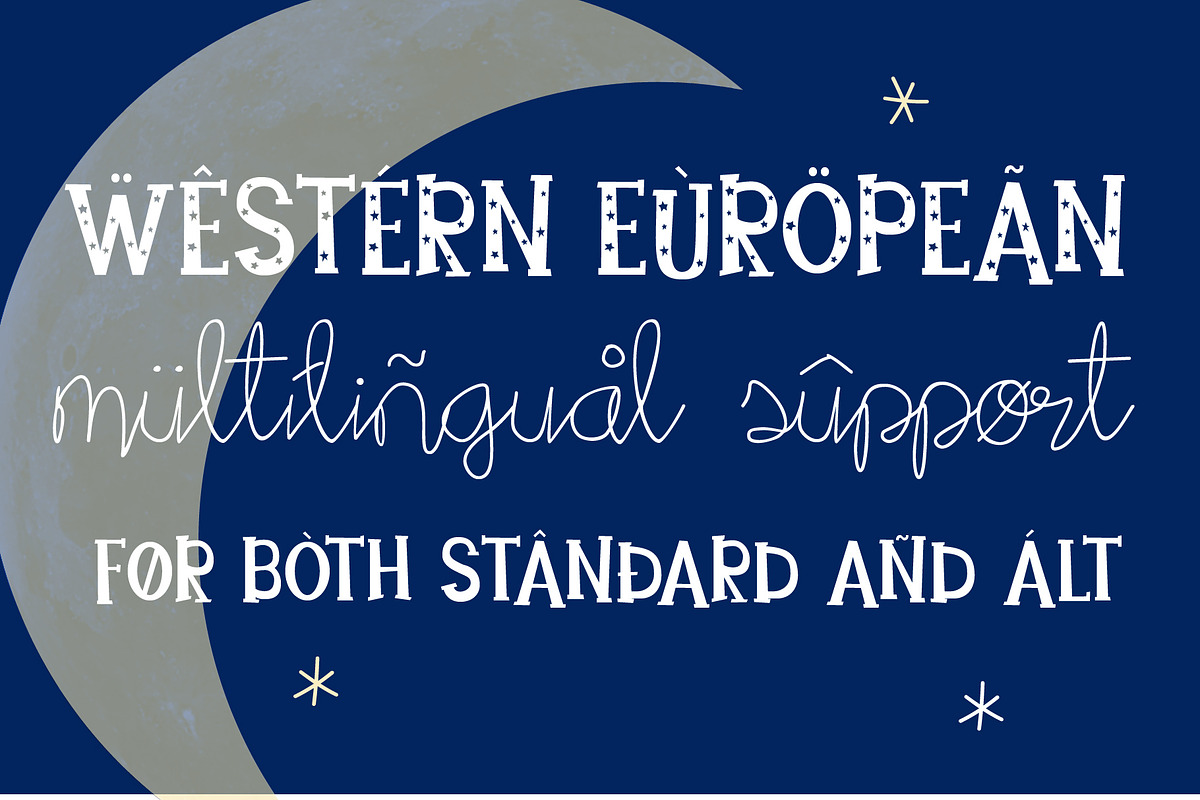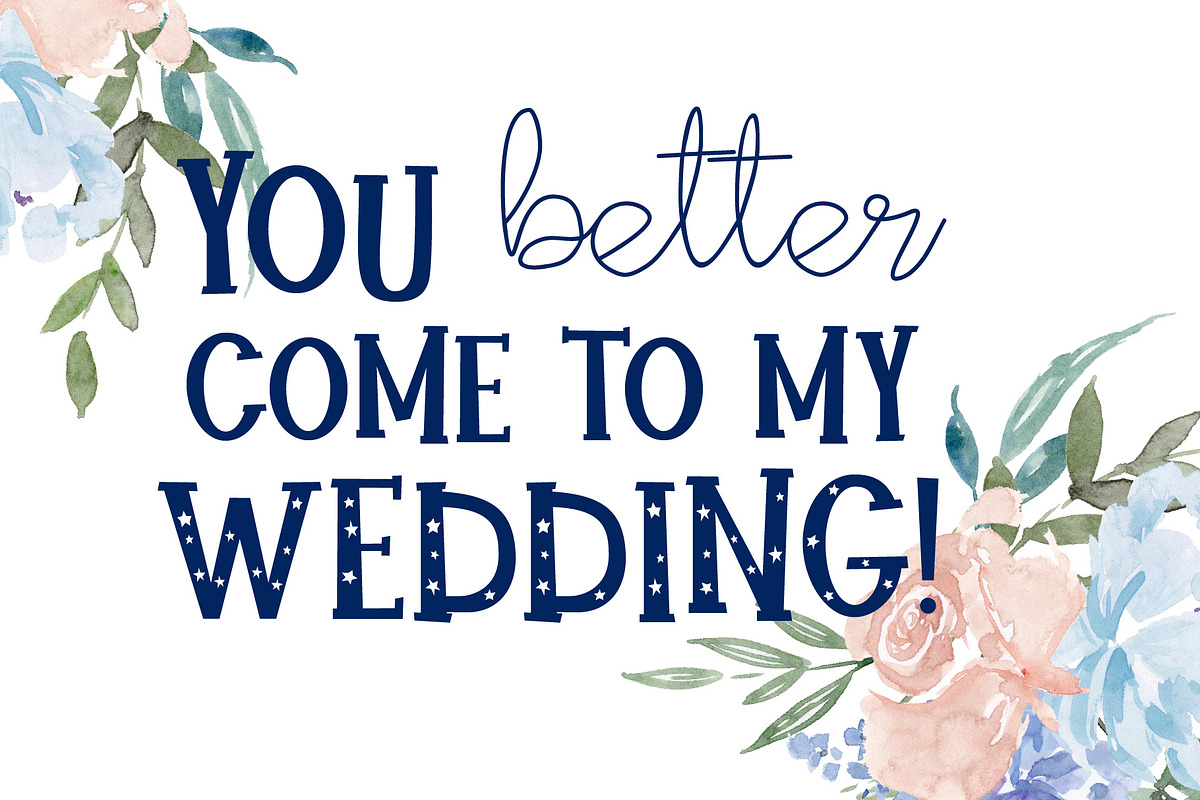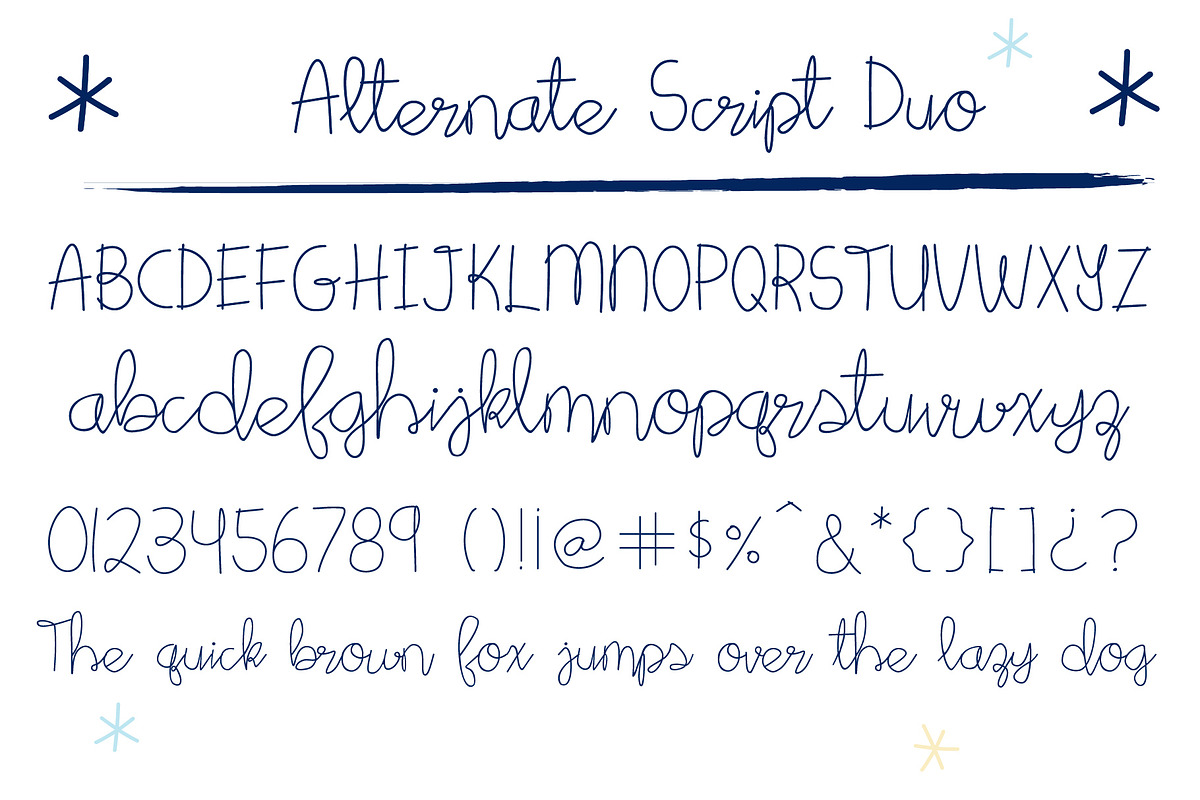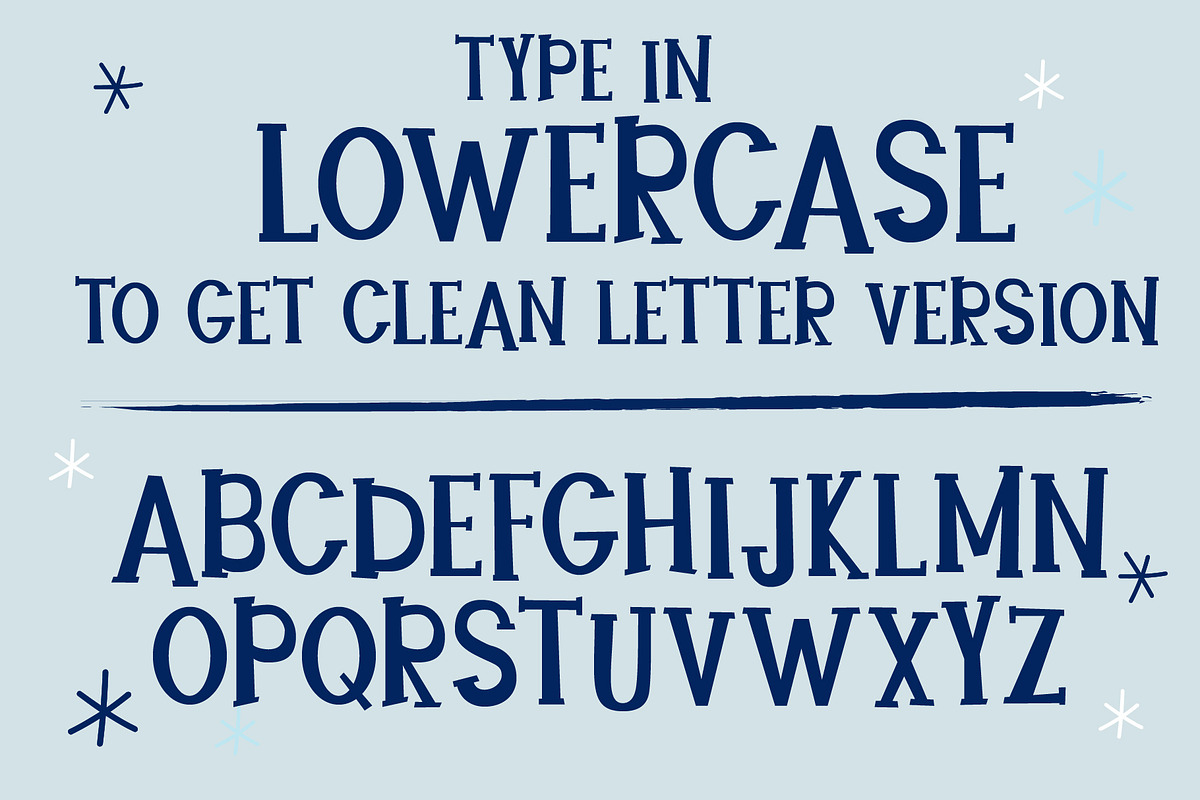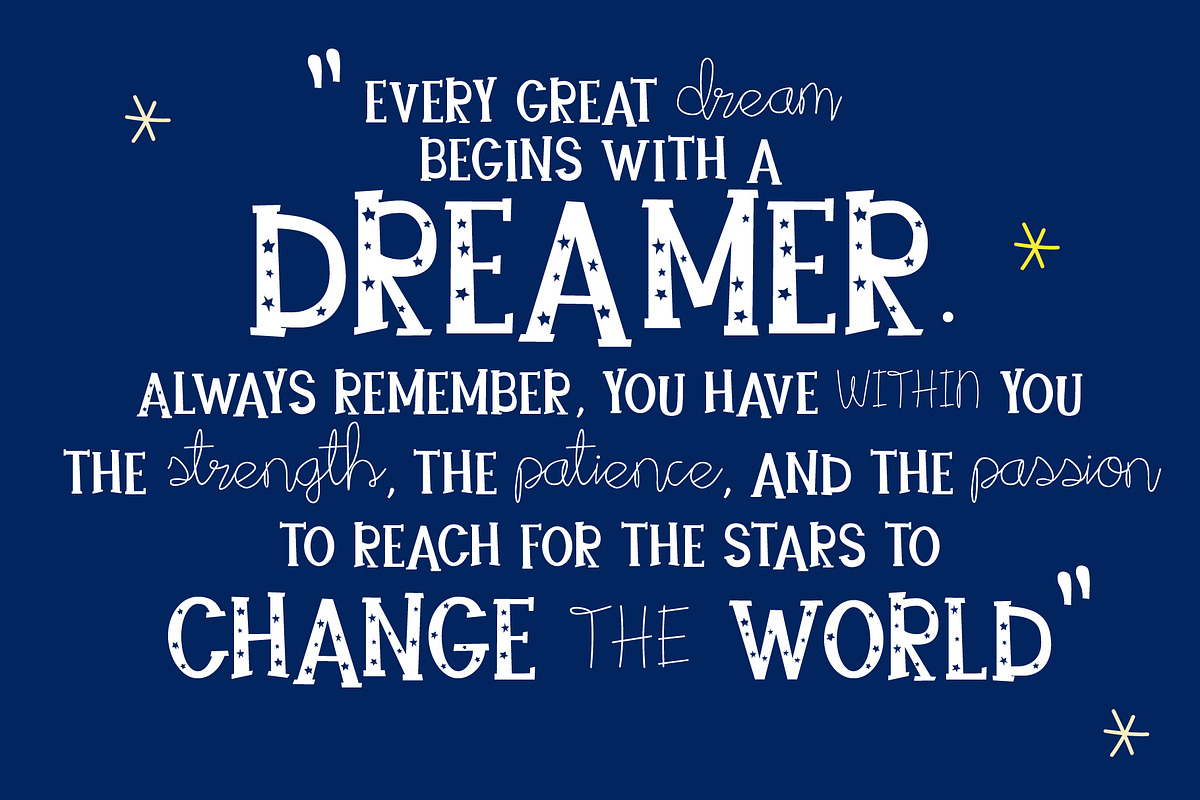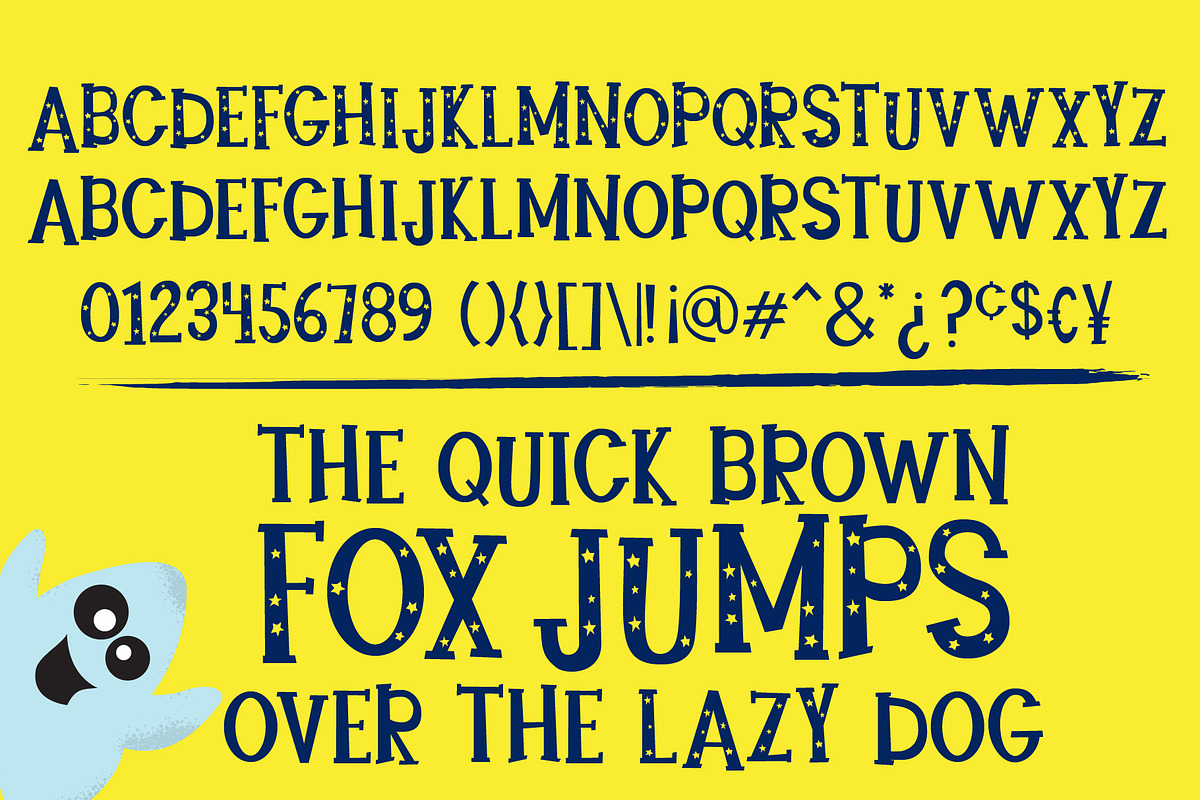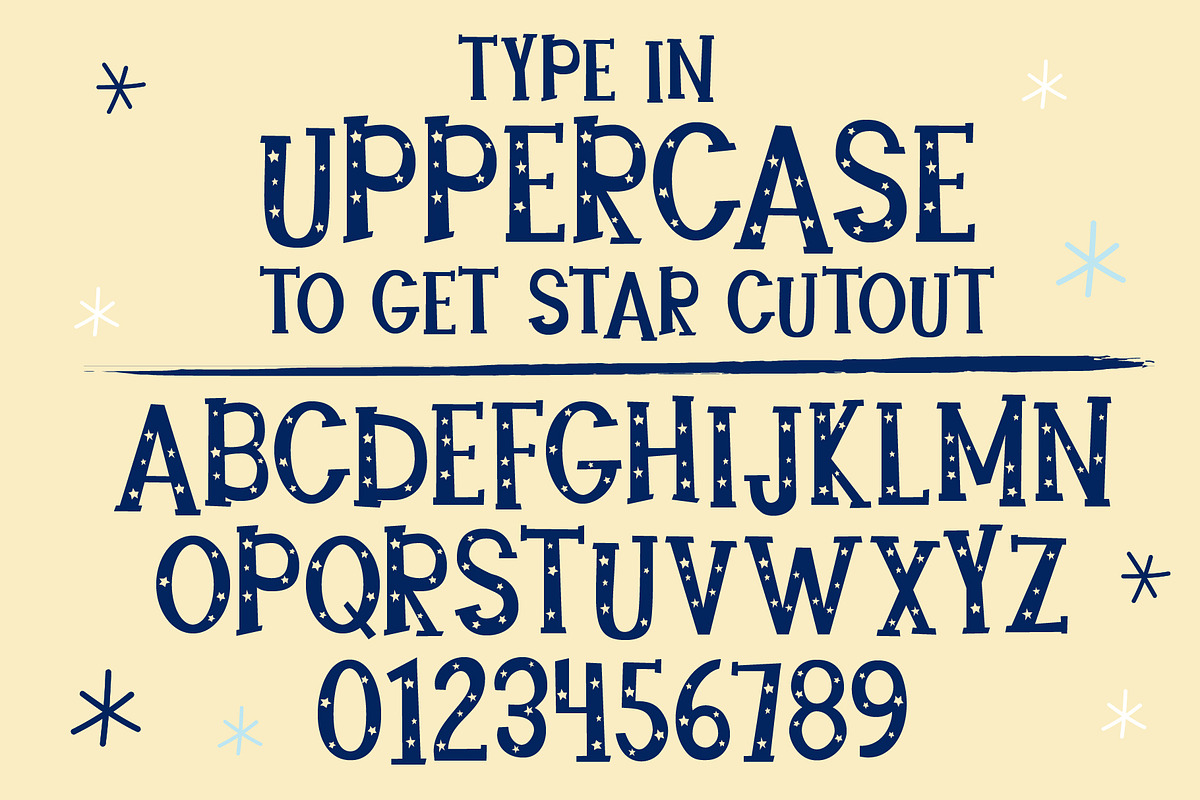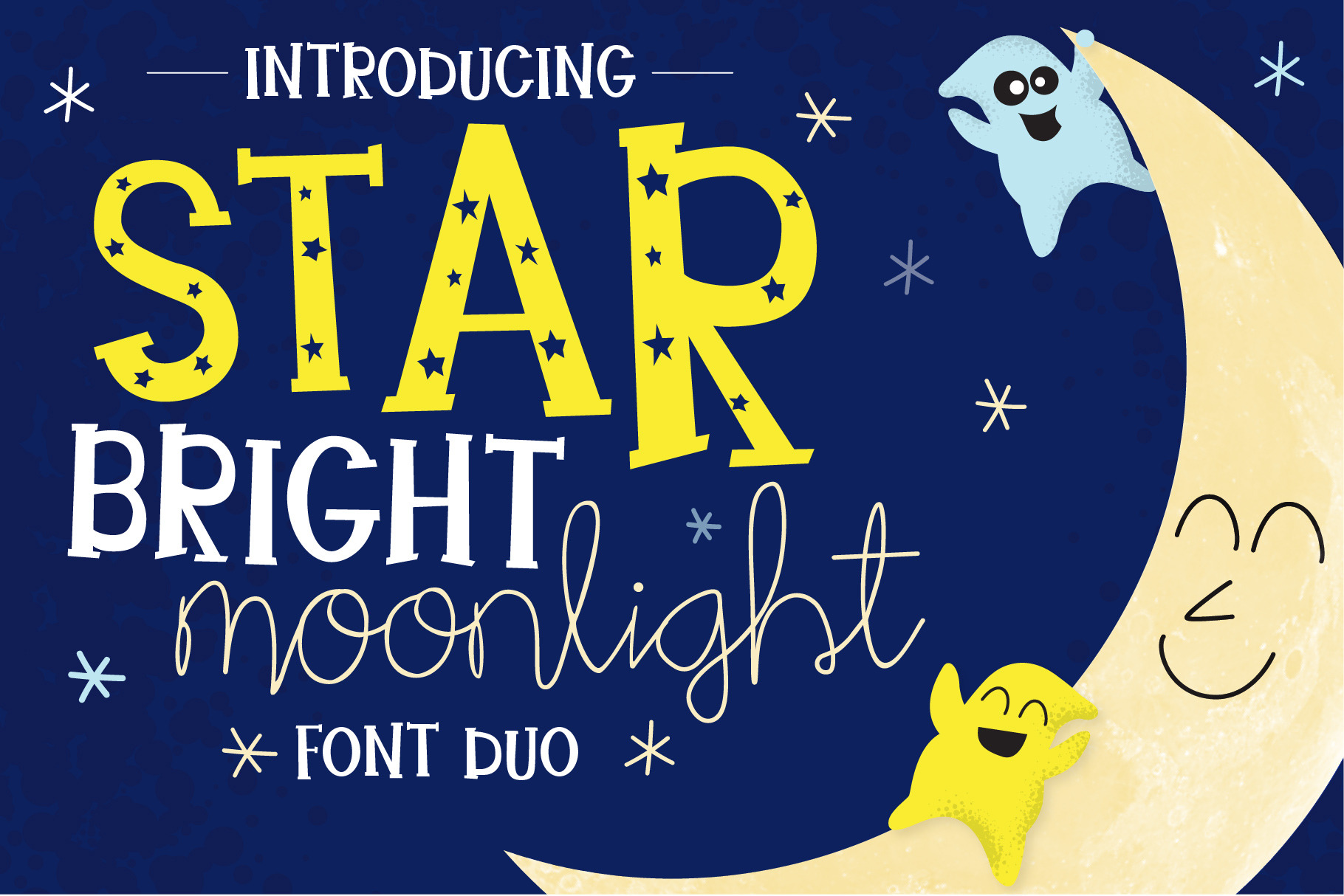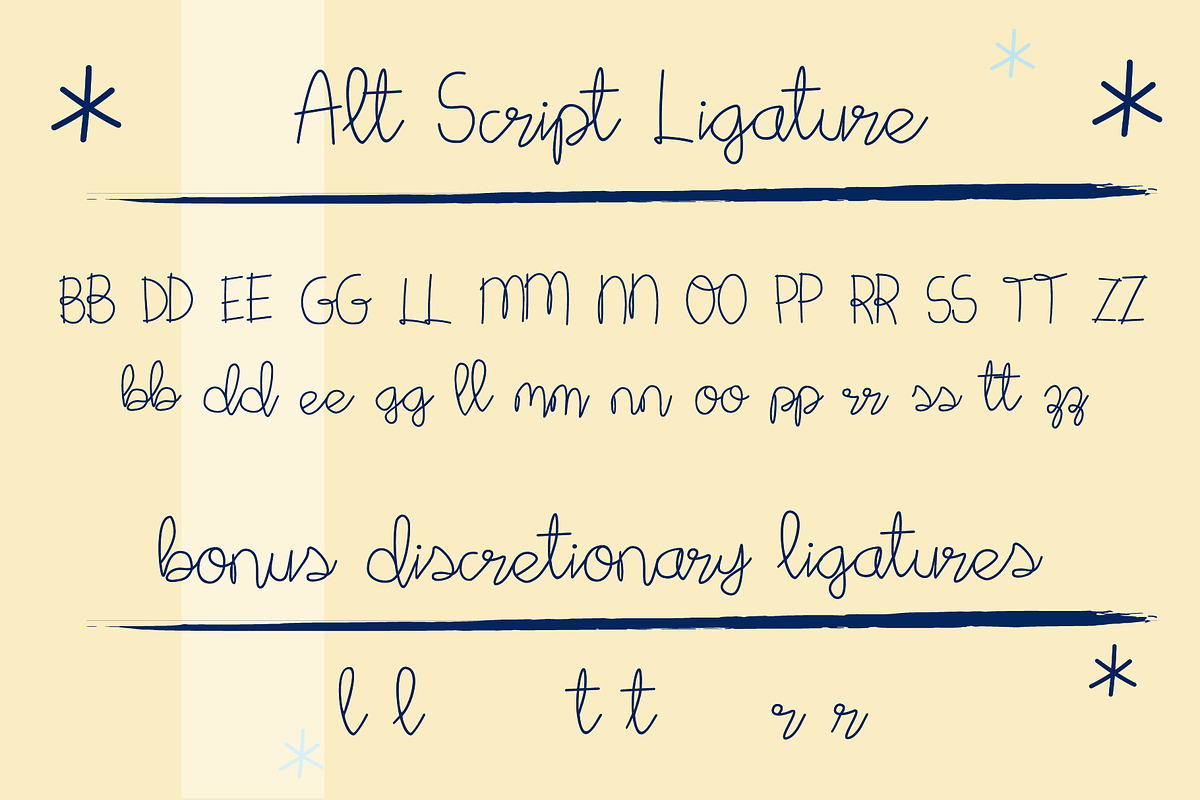
Star Bright Moon Light Font Duo
Introducing, Star Bright Moon Light Font Duo. This font duo was inspired by night sky. Type in uppper case to case the type with the star cut out, and lowercase for a clean version. Enjoy!. This PUA font is perfect for professional designer, social media, or crafters.